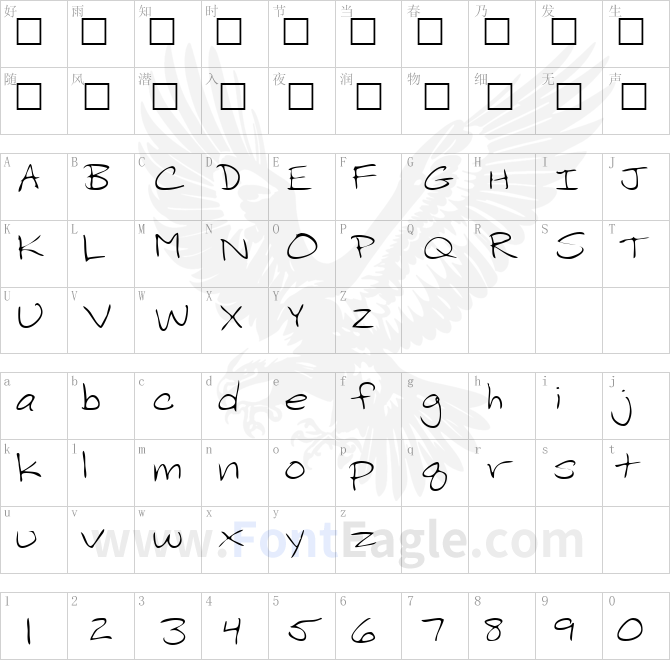
- Font name:MiriamsHand
- Font Subfamily ID:Weatherly Systems, Inc. MiriamsHand Regular
- Font Full Name:MiriamsHand Regular
- Postscript:MiriamsHand-Plain